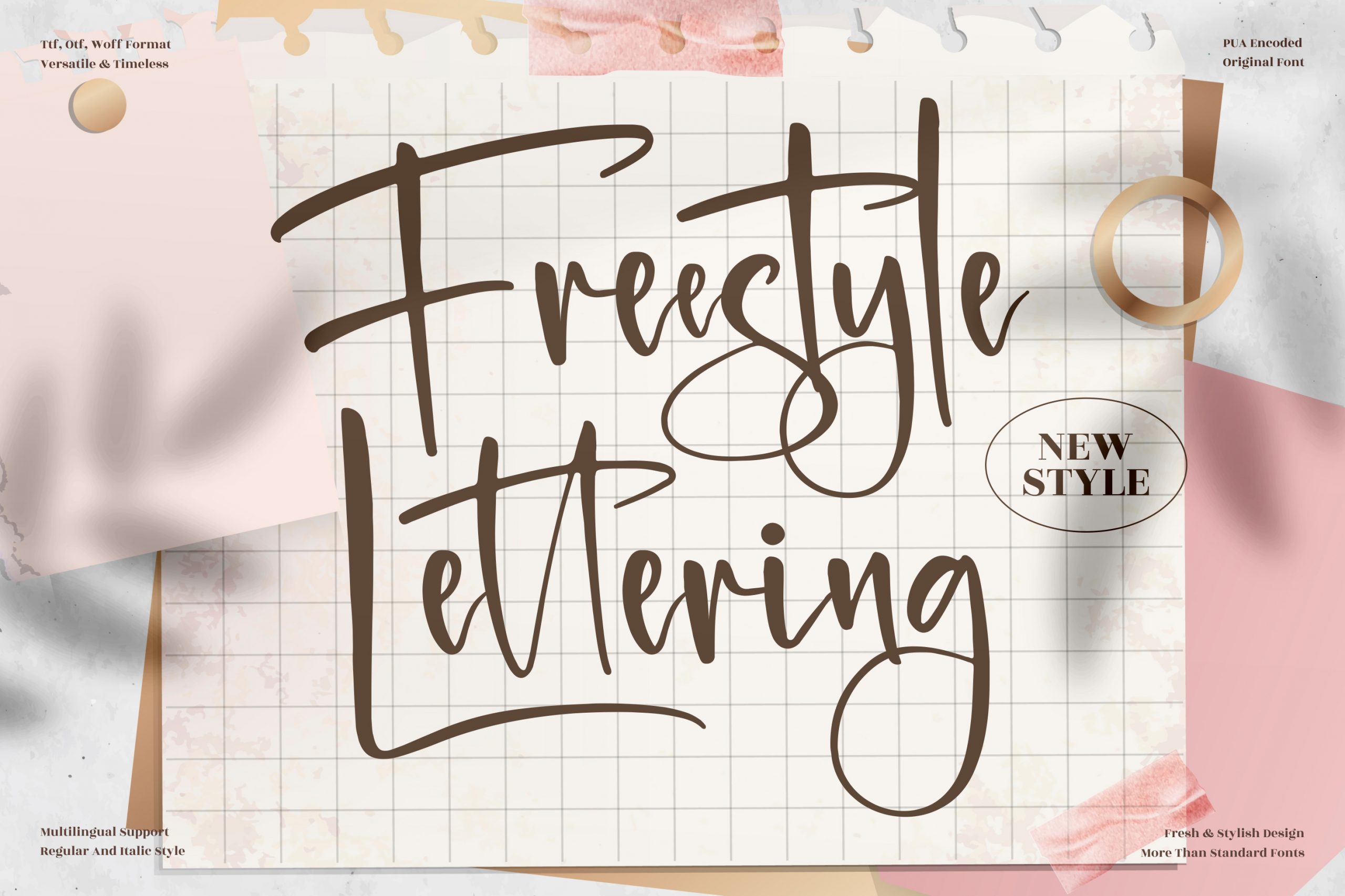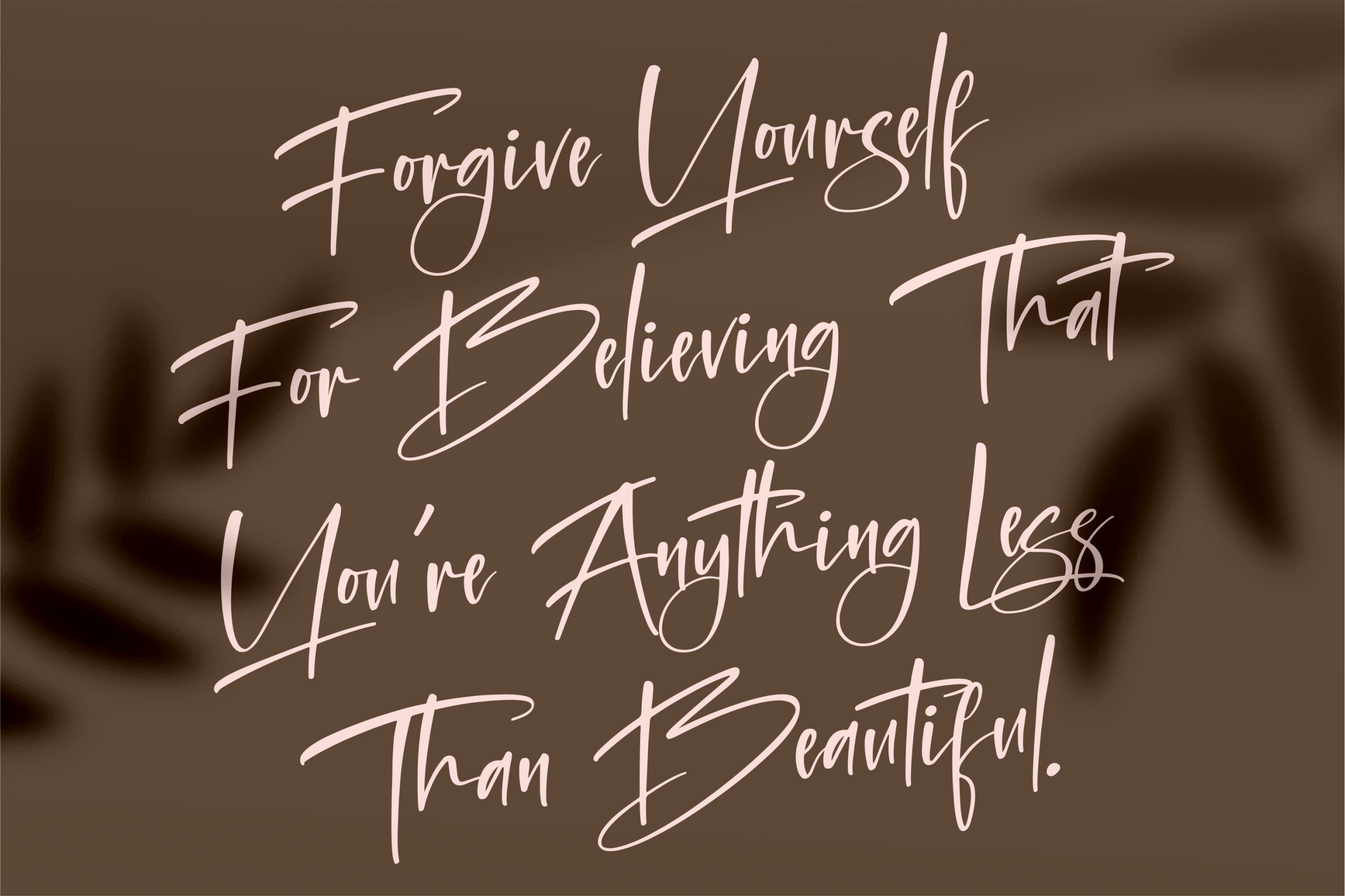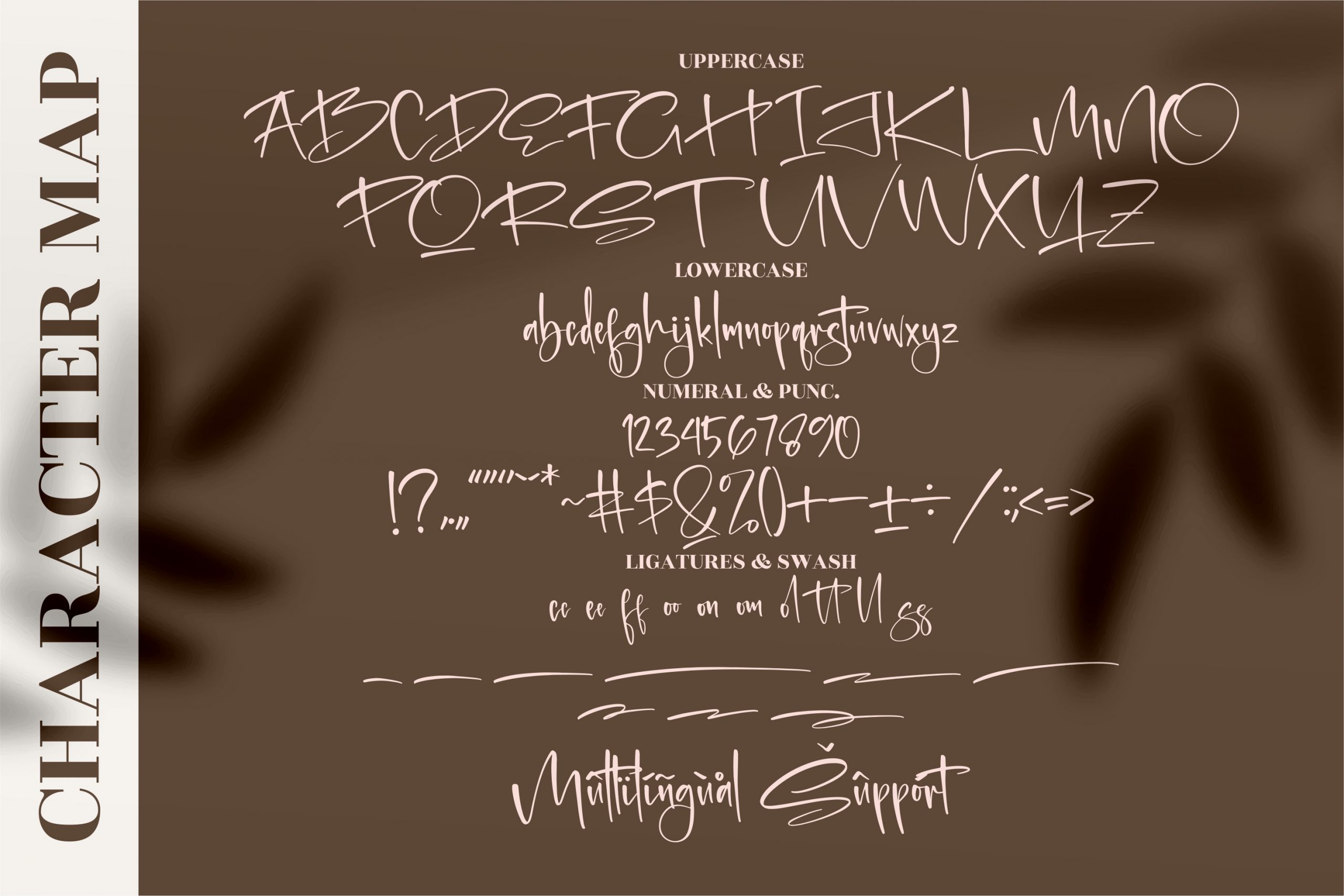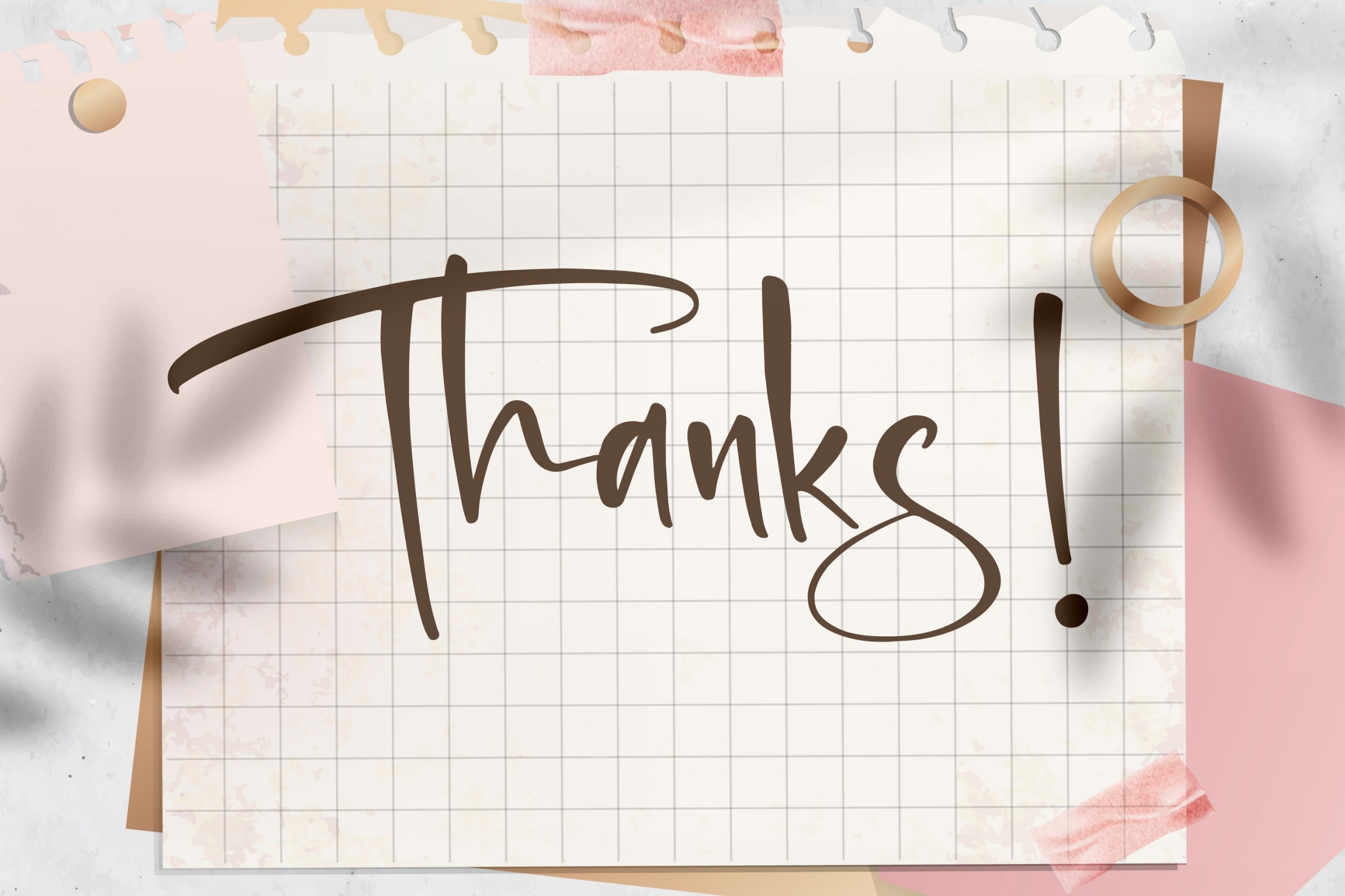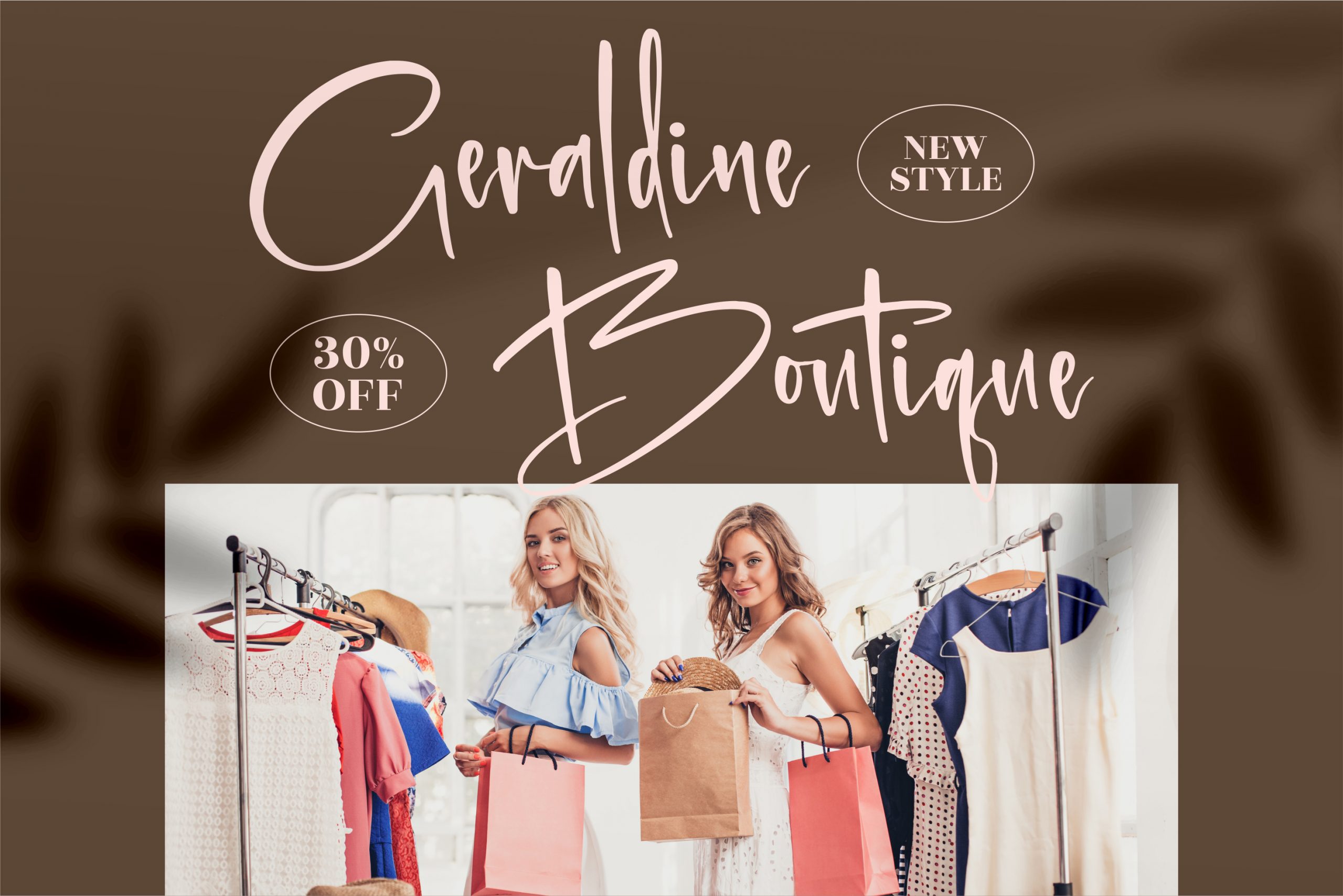
Freestyle Lettering Font
Freestyle Lettering Script Font
This is a romantic calligraphy font, suitable for any projects such as: logos, branding projects, homeware designs, product packaging, mugs, quotes, posters, shopping bags, t-shirts, book covers, name card, invitation cards, greeting cards, label, photography, watermark, special events, and all your other lovely projects that need a beautiful script taste.